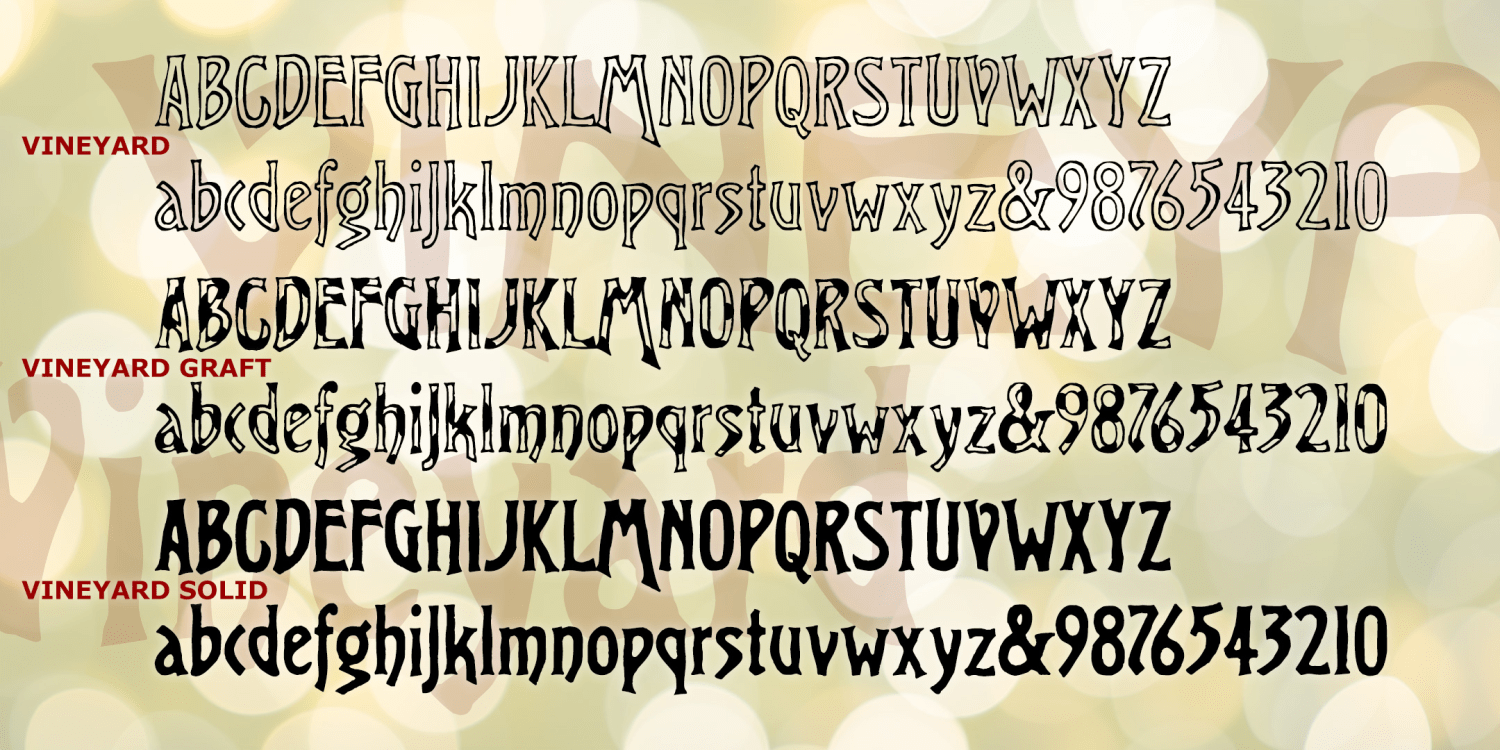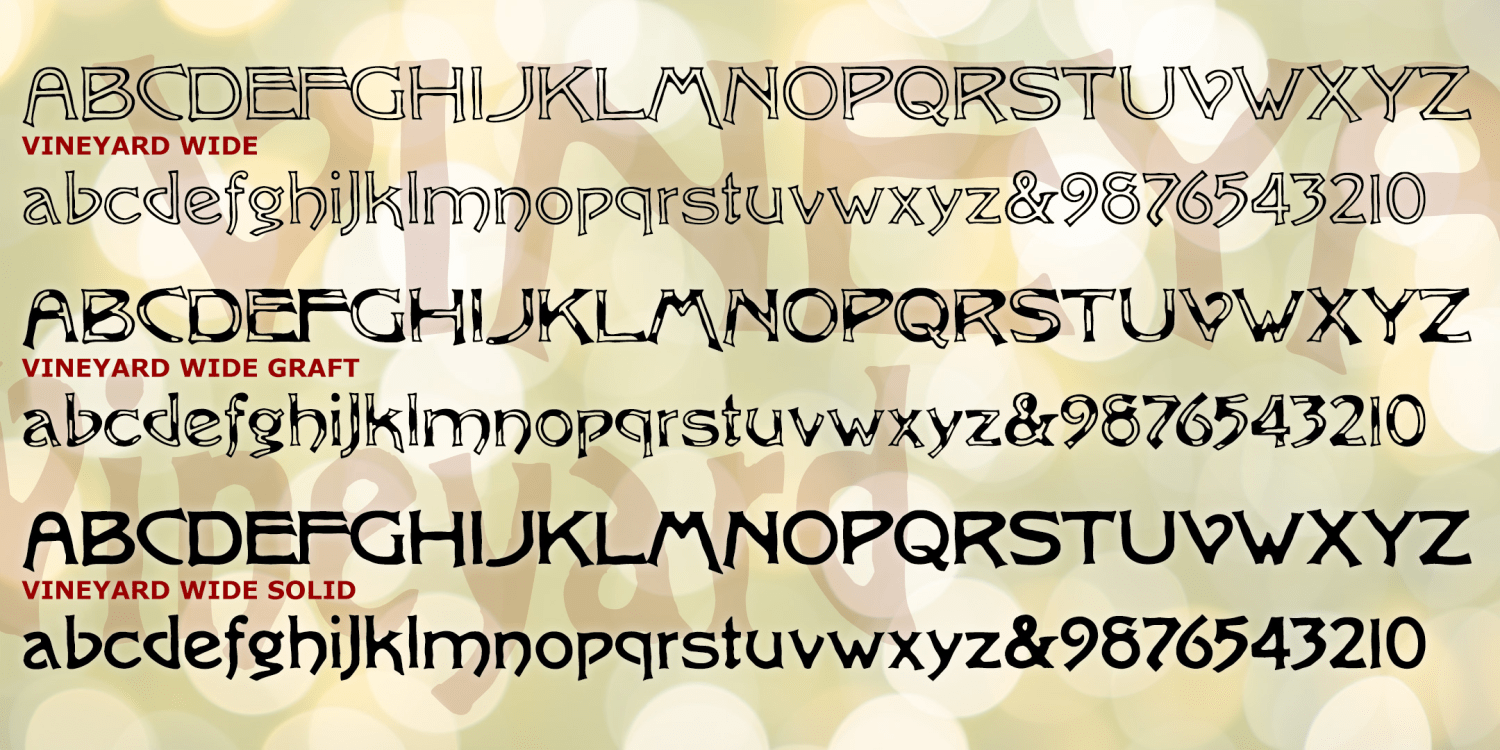
Vineyard Graft
VINEYARD is a pairing of fonts with a rich, woody character. Featuring notes of bark and an earthy finish, Vineyard can be served at most any occasion. The Solid fonts can be used separately or, in a contrasting color, as a fill for the Regulars. And now there's a third variety, Graft, a dynamic blend of outline and solid.
Vineyard was inspired by two early 20th-century analog fonts from American Type Founders, Virile and Erratic Outline. I've married the two designs, expanding and refining them. At one time I offered my version of Virile; it has since been revised, and expanded, and renamed to become Vineyard.